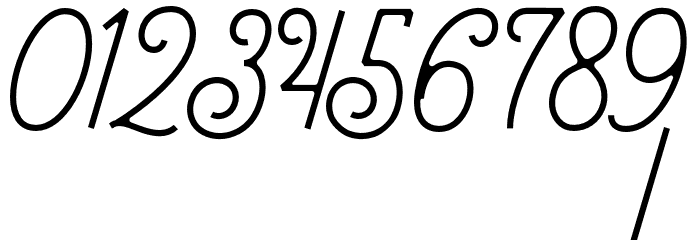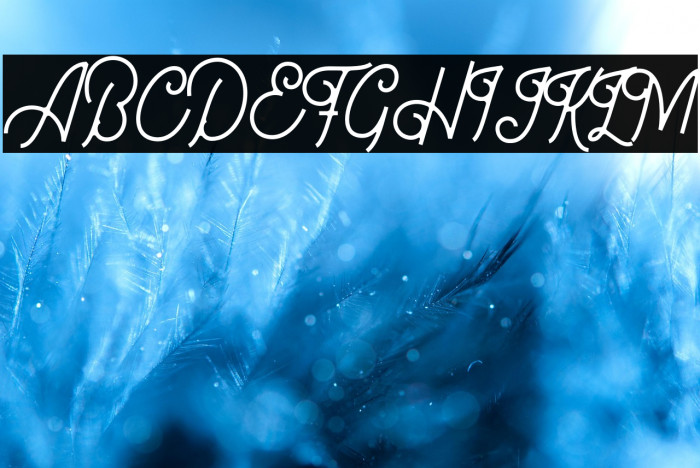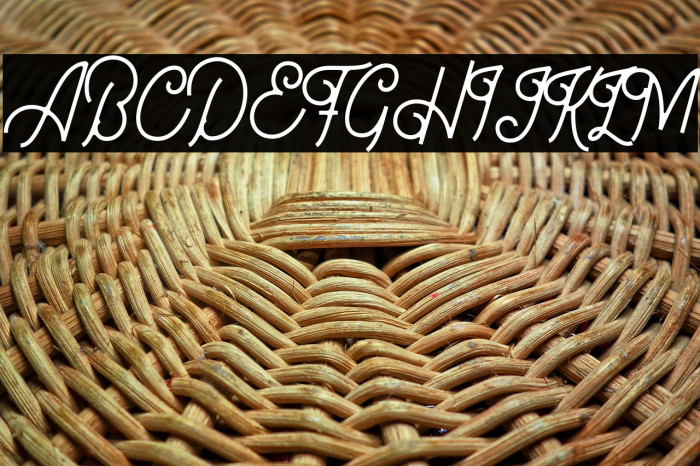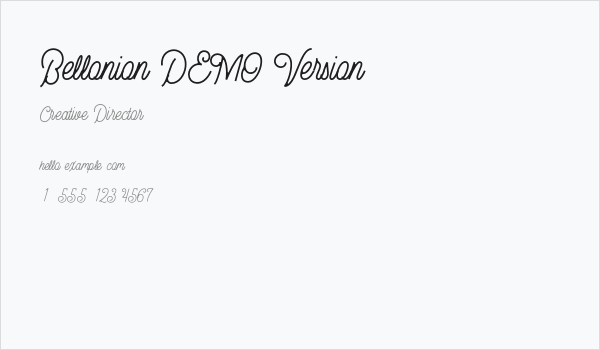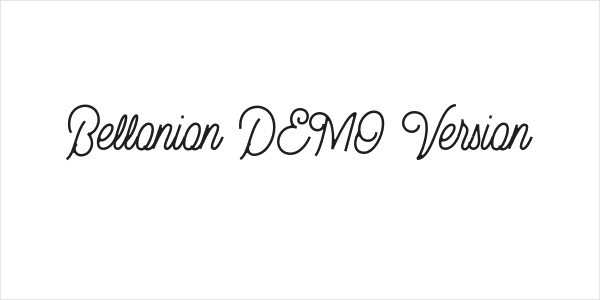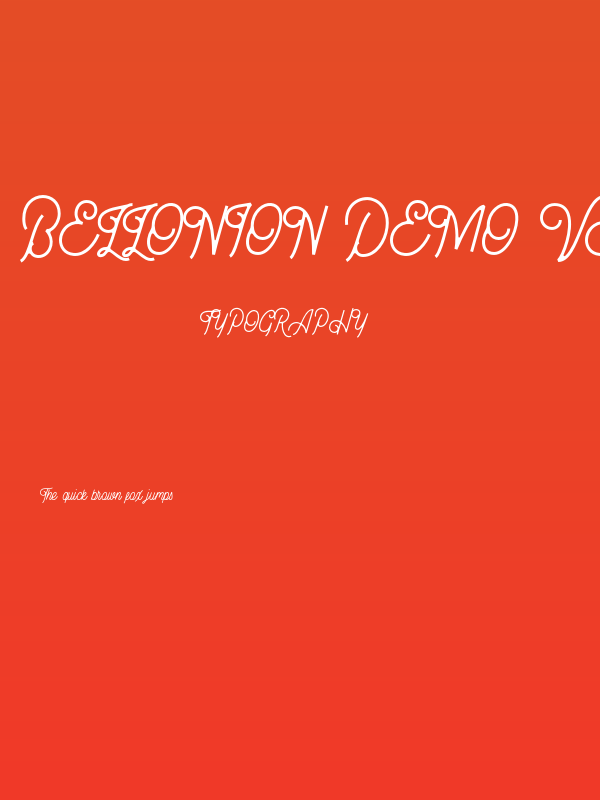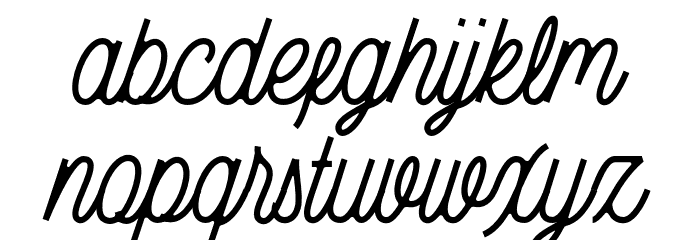
Bellonion DEMO Version Font
Bellonion DEMO Version Description
This font features a flowing, cursive style with elegant loops and swashes, giving it a sophisticated and artistic appearance. The uppercase letters are tall and slender, with graceful curves that enhance their decorative nature. The lowercase letters maintain a consistent flow, connecting smoothly to create a seamless script. Numbers are styled with similar elegance, incorporating subtle flourishes that add to the overall aesthetic. The special characters are designed to complement the alphabet, maintaining the same level of detail and artistry. This font is perfect for projects that require a touch of elegance and creativity.